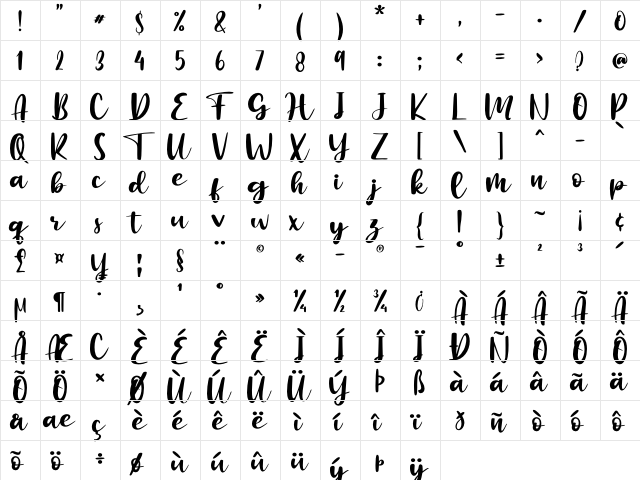
Botanical Flourish - Personal U Regular
| Designer | Sarwo Edhi Prayitno |
Design Context for Botanical Flourish - Personal U Typeface
Botanical Flourish - Personal U is a composed and adaptable typeface that performs quietly and consistently across a wide range of design contexts.